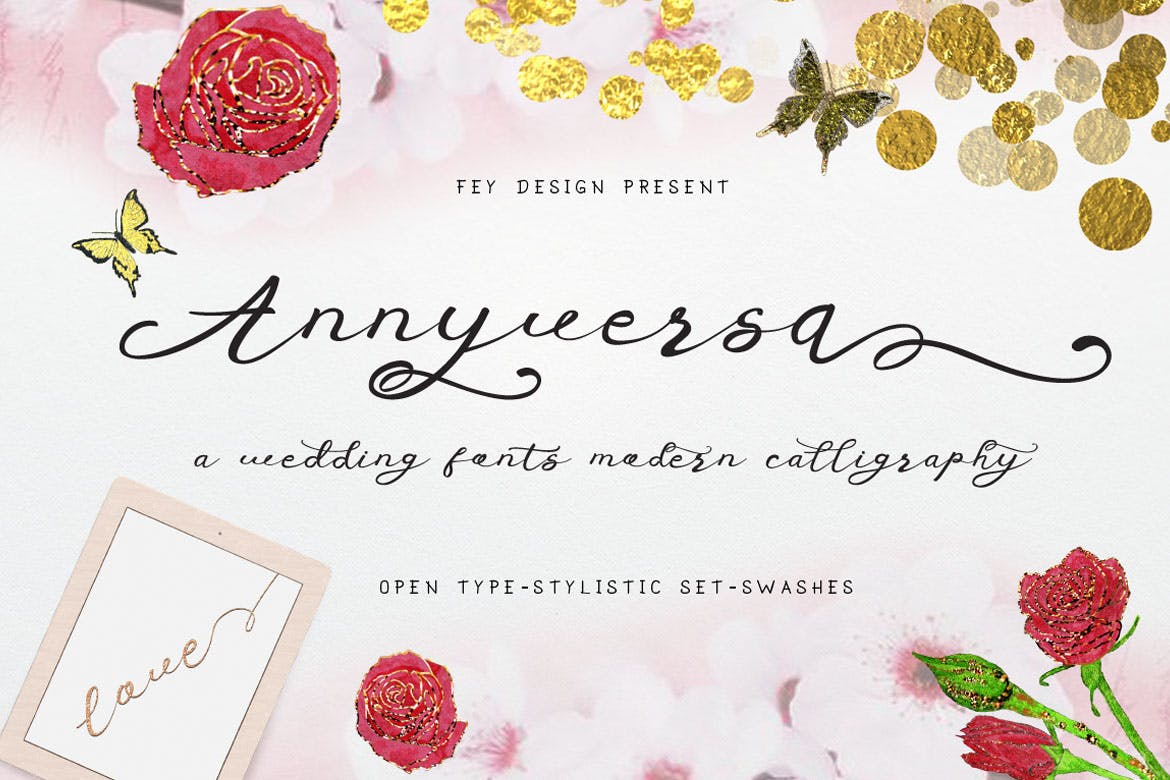
Anniversa Wedding Font
The Anniversa Wedding Font excels in commemorative design applications including anniversary wedding invitations, milestone bridal branding, celebration ceremony logos, commemorative product packaging, anniversary business cards, milestone portfolios, celebration greeting cards, commemorative social media graphics, anniversary event signage, and milestone marketing materials. Its commemorative script style makes it perfect for projects requiring celebratory elegance that communicates milestones and establishes anniversary brand positioning with audiences seeking commemorative wedding experiences and celebratory sophistication.
What makes the Anniversa Wedding Font genuinely exciting is its exceptional ability to capture the commemorative beauty and celebratory elegance of milestone weddings through ceremonially crafted letterforms. The font features flowing, anniversary strokes with commemorative flourishes and celebratory proportions that create a distinctly milestone appearance. Each character displays remarkable attention to commemorative detail with celebratory curves, anniversary connections, and milestone spacing that give text a beautifully commemorative, hand-lettered quality. The font's anniversary character and celebratory rhythm create an atmosphere of milestone elegance while maintaining commemorative sophistication and wedding authenticity.
The Anniversa Wedding Font family typically includes regular weight with extensive character coverage, featuring uppercase and lowercase letters, numerals, punctuation marks, and international characters. The typeface often incorporates stylistic alternates, contextual ligatures, and commemorative swashes that enhance its signature celebration. These additional elements provide designers with creative flexibility to customize text appearance and achieve more natural-looking celebratory handwriting that reflects the font's anniversary and milestone character.
This commemorative signature font distinguishes itself through its remarkable balance of celebratory charm and sophisticated elegance. Unlike ordinary or unremarkable fonts that lack anniversary appeal, Anniversa Wedding Font embraces the power of commemorative design to create celebratory connections with milestone wedding audiences. The font's anniversary character makes it essential for commemorative wedding planners, celebratory brands, and milestone celebration businesses where creating anniversary wedding experiences and commemorative memories is fundamental to success in celebratory wedding markets.
Anniversa is wedding font with modern calligraphy style, Suitable for design, element design, wedding, event, t-shirt, logo, badges, sticker, and awesome work, etc...  Feauture Of The Font: Anniversa OTF And TTF Anniversa Swashes OTF And TTF Open Type Features Fonts, OTF and TTF Combination alternative ligature fonts Standard Ligatures, Stylistic Set, Multilanguage Characters Modern Calligraphy Typeface PUA Encode Multilanguage Support Unique style fonts Easy customize